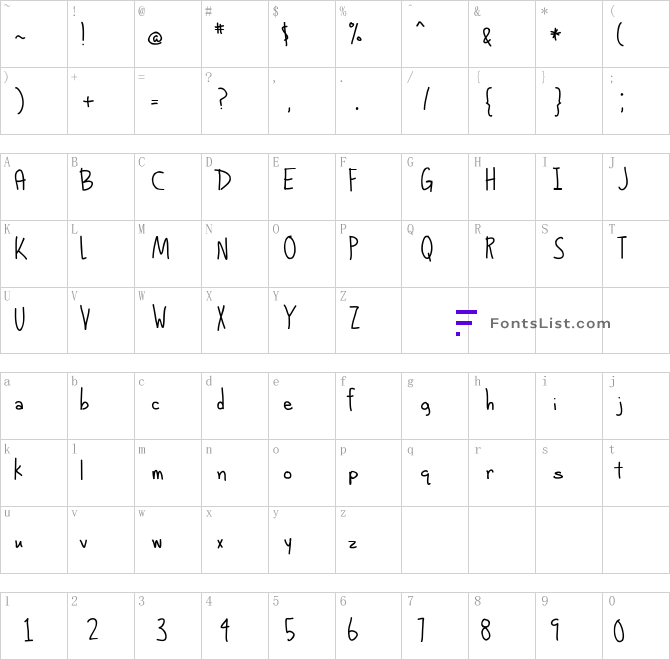
- Font Name:alphabetized cassette tapes
alphabetized-cassette-tapes.ttf is a very beautiful artistic font, alphabetized-cassette-tapes.ttf is widely used in the design and printing of various books and pictures,alphabetized-cassette-tapes.ttf has a strong visual impact,alphabetized-cassette-tapes.ttf is a commonly used font in newspapers, magazines and books, and is used in posters, e-commerce Poster design, store design, logo design, font design and other fields.alphabetized-cassette-tapes.